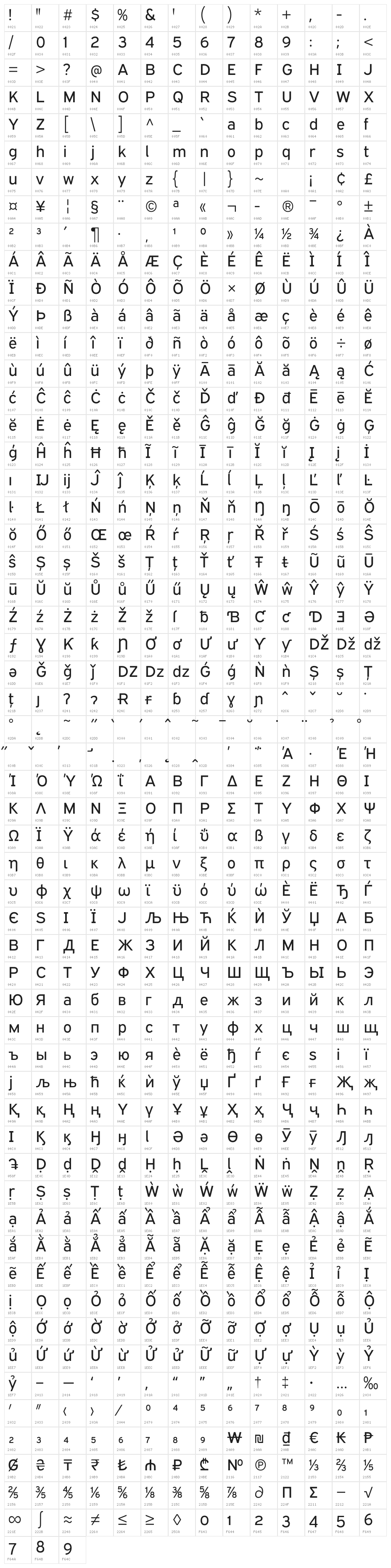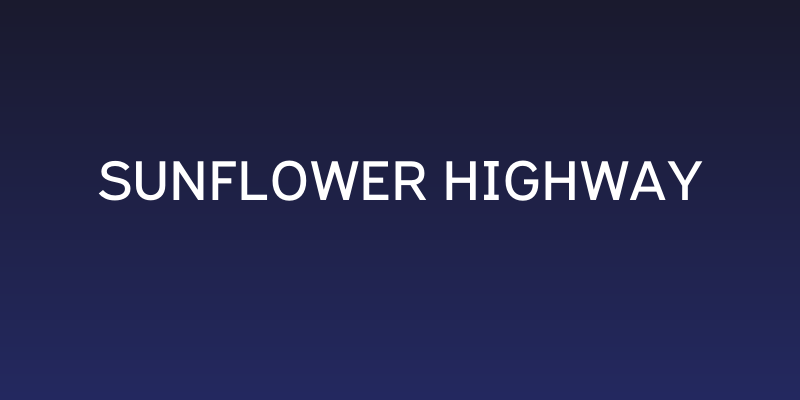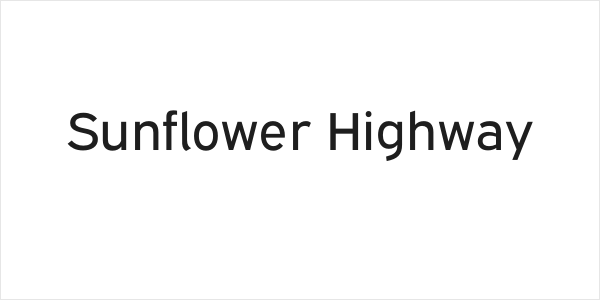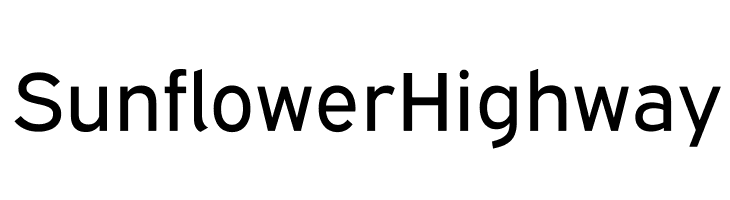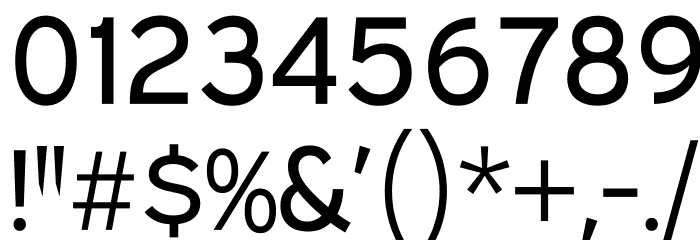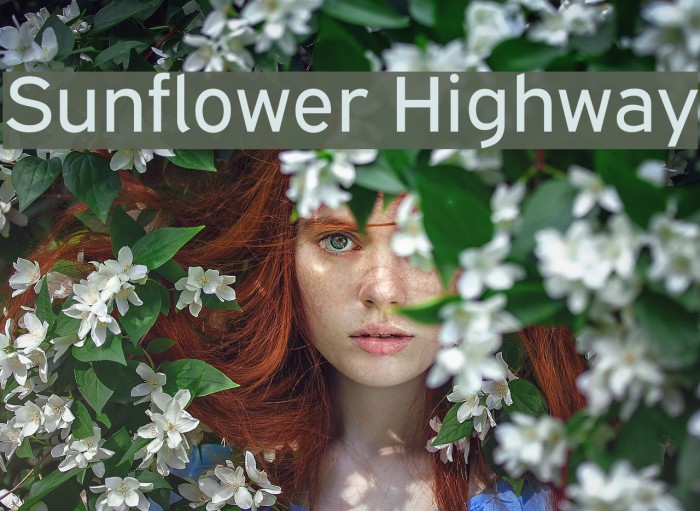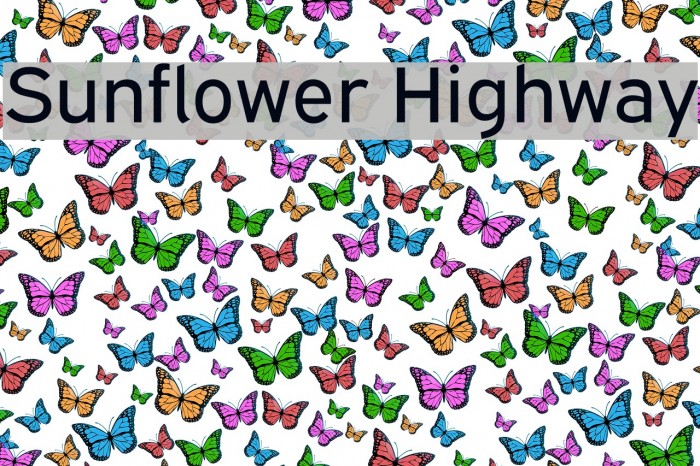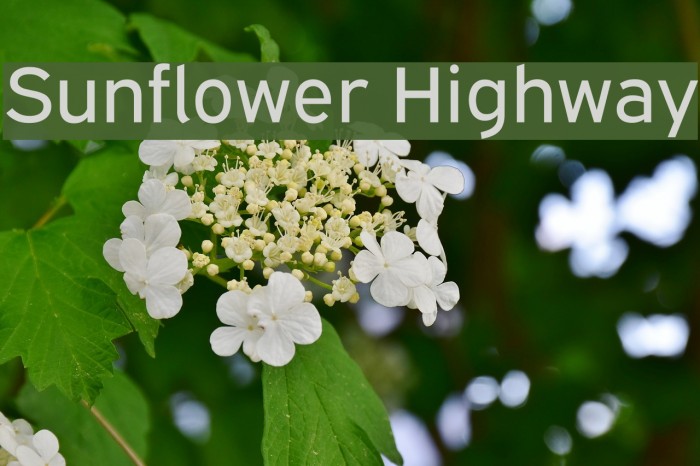
Sunflower Highway Font
Sunflower Highway Description
This typeface features a clean and modern sans-serif design, characterized by its simplicity and readability. The letters are evenly spaced with a consistent stroke width, giving it a balanced and harmonious appearance. The uppercase and lowercase letters maintain a uniform height, contributing to its legibility. The numbers and special characters are designed to match the overall style, ensuring a cohesive look across all elements. This font is versatile and suitable for a wide range of applications, from digital interfaces to print media.
| Proposed Projects | Ideal for web design, corporate branding, user interfaces, and editorial layouts. |